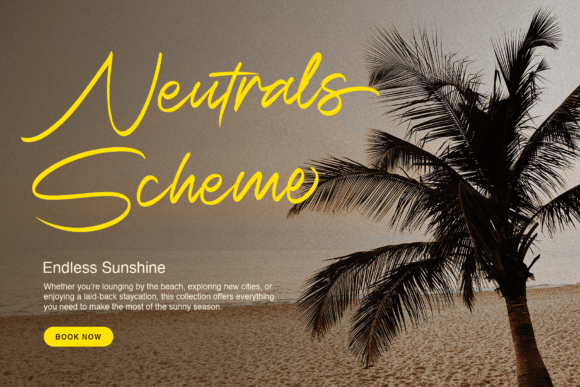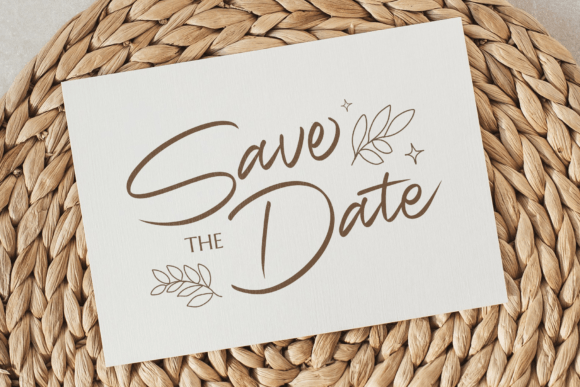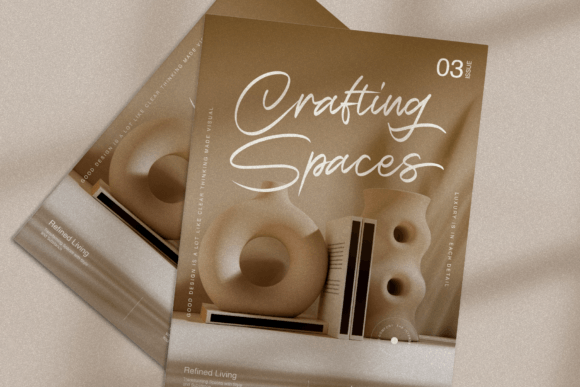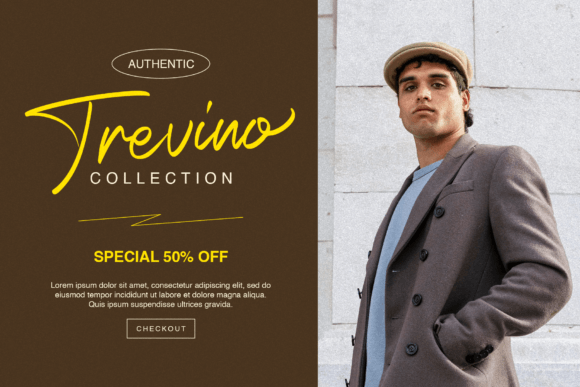
Moonlight Breeze Font
Let your designs glow with the charm of Moonlight Breeze, a graceful handwritten script font inspired by the serenity of moonlit nights and the gentle sway of a summer breeze.